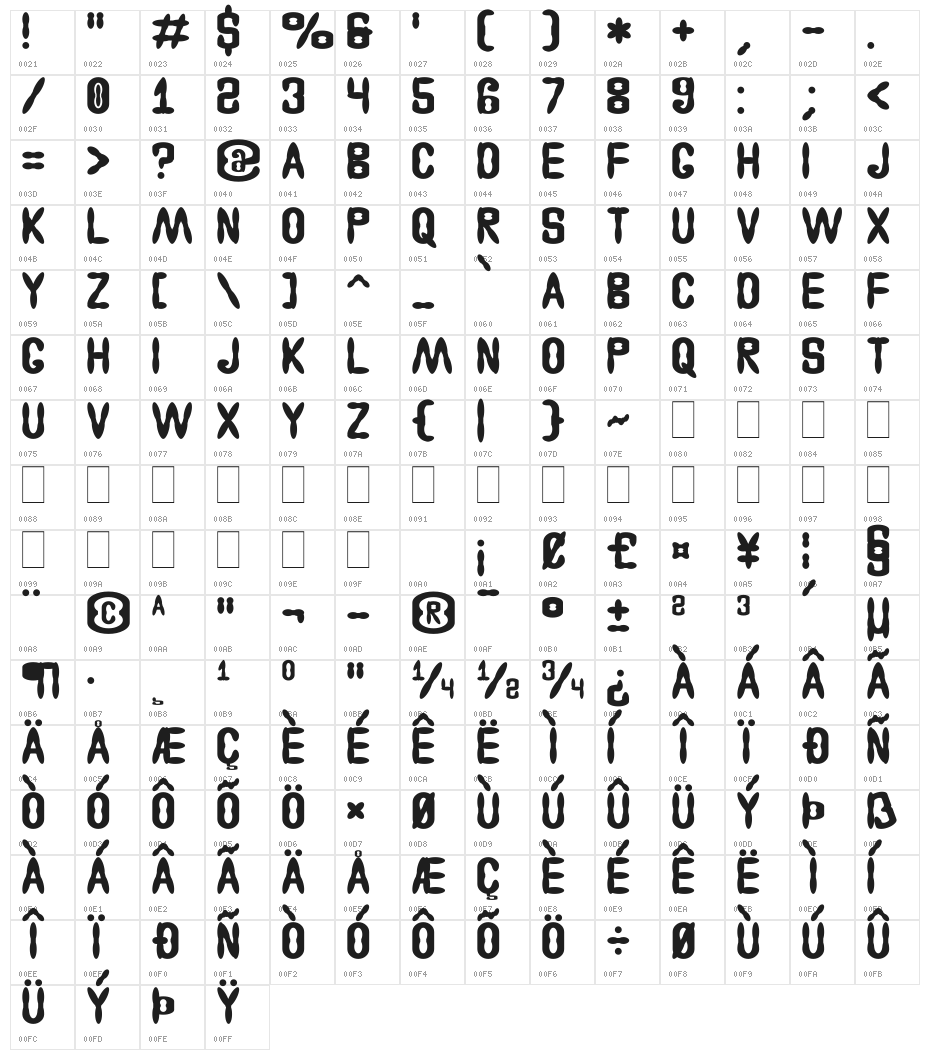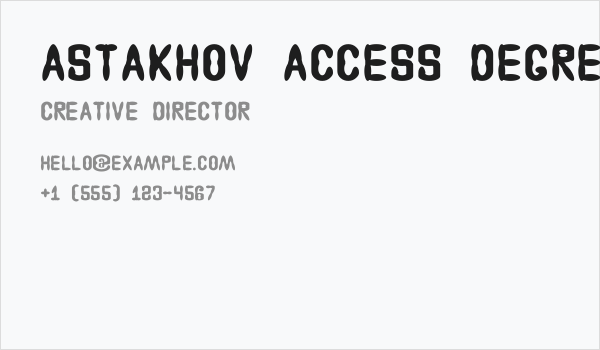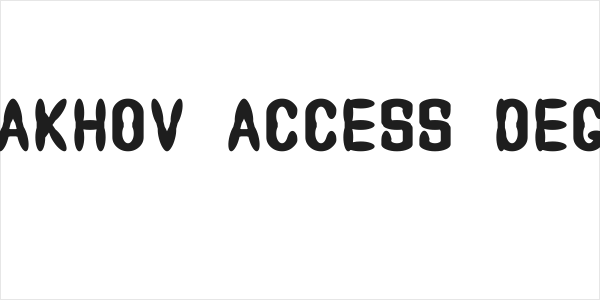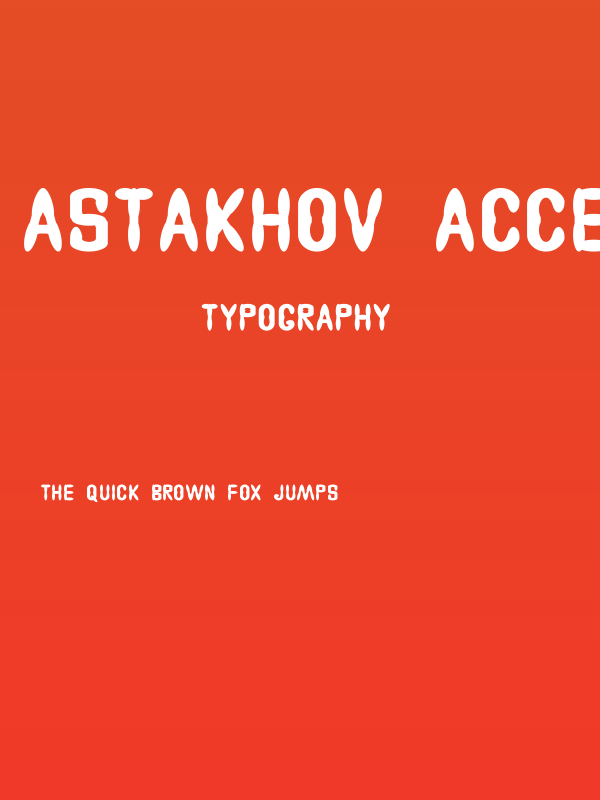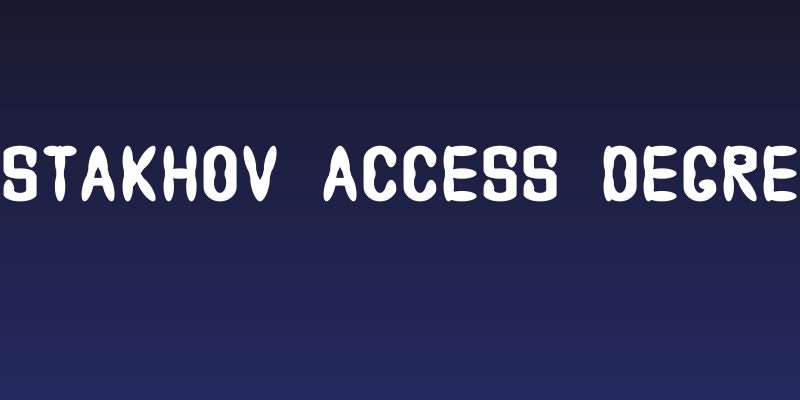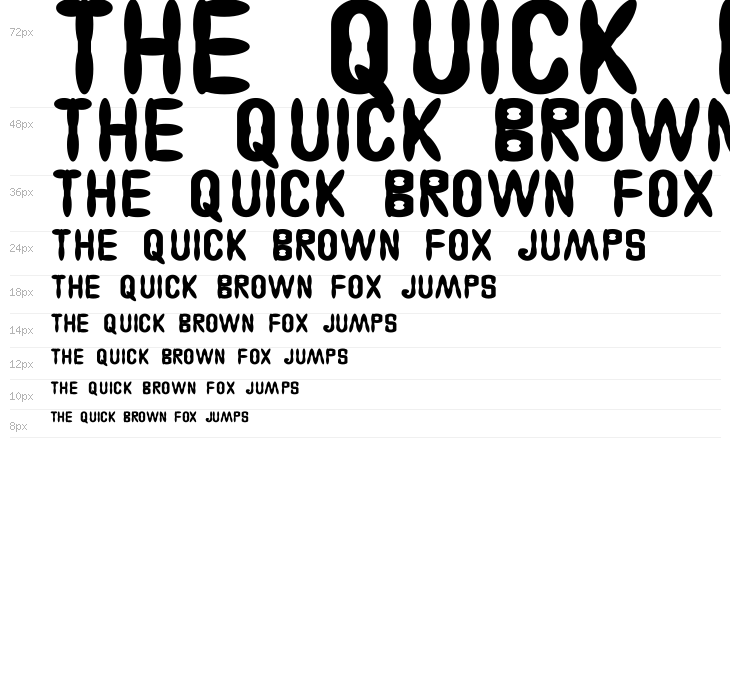
Astakhov Access Degree Font
Astakhov Access Degree Description
This font features a bold and playful design with a unique, bubbly appearance. The characters are rounded and have a slightly irregular shape, giving them a whimsical and informal feel. The boldness of the letters makes them stand out, while the rounded edges soften the overall look, making it approachable and friendly. The numbers and special characters follow the same playful style, ensuring consistency throughout. This font is ideal for projects that require a fun and engaging aesthetic, such as children's books, playful branding, or creative posters.